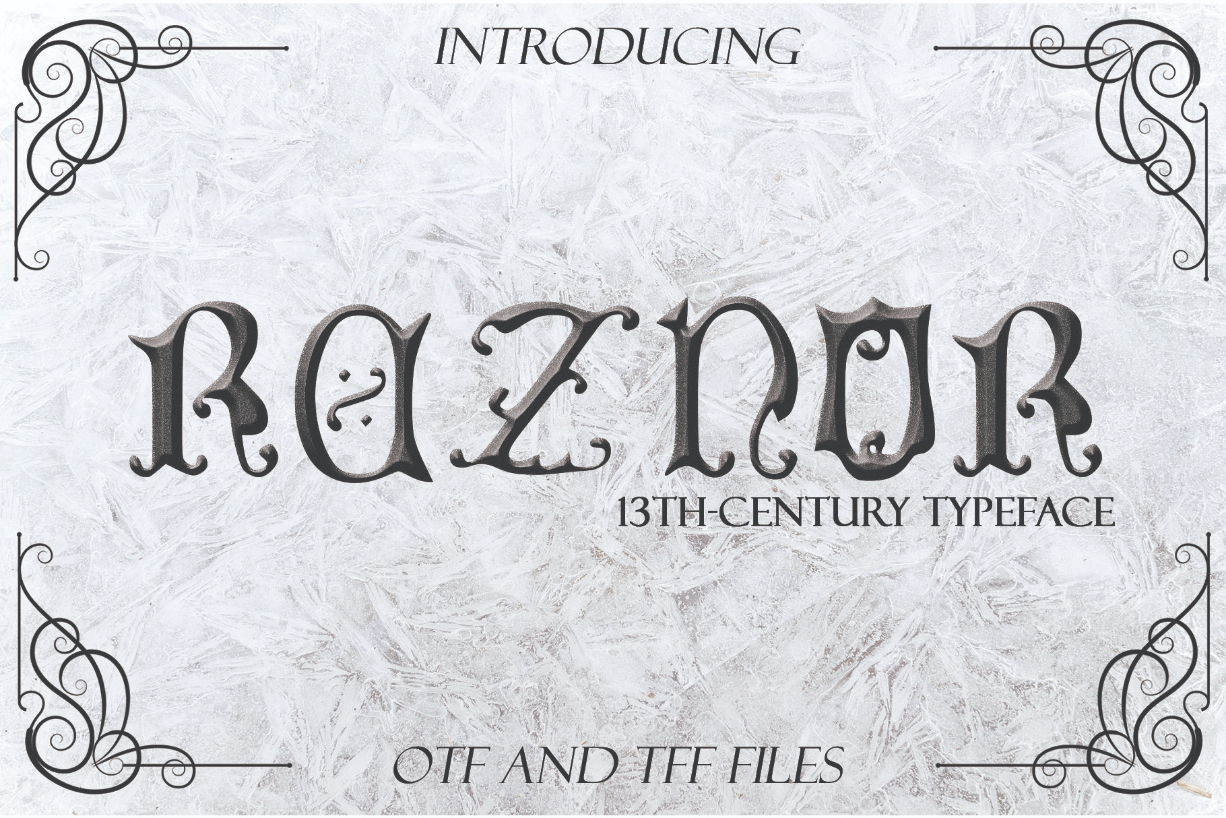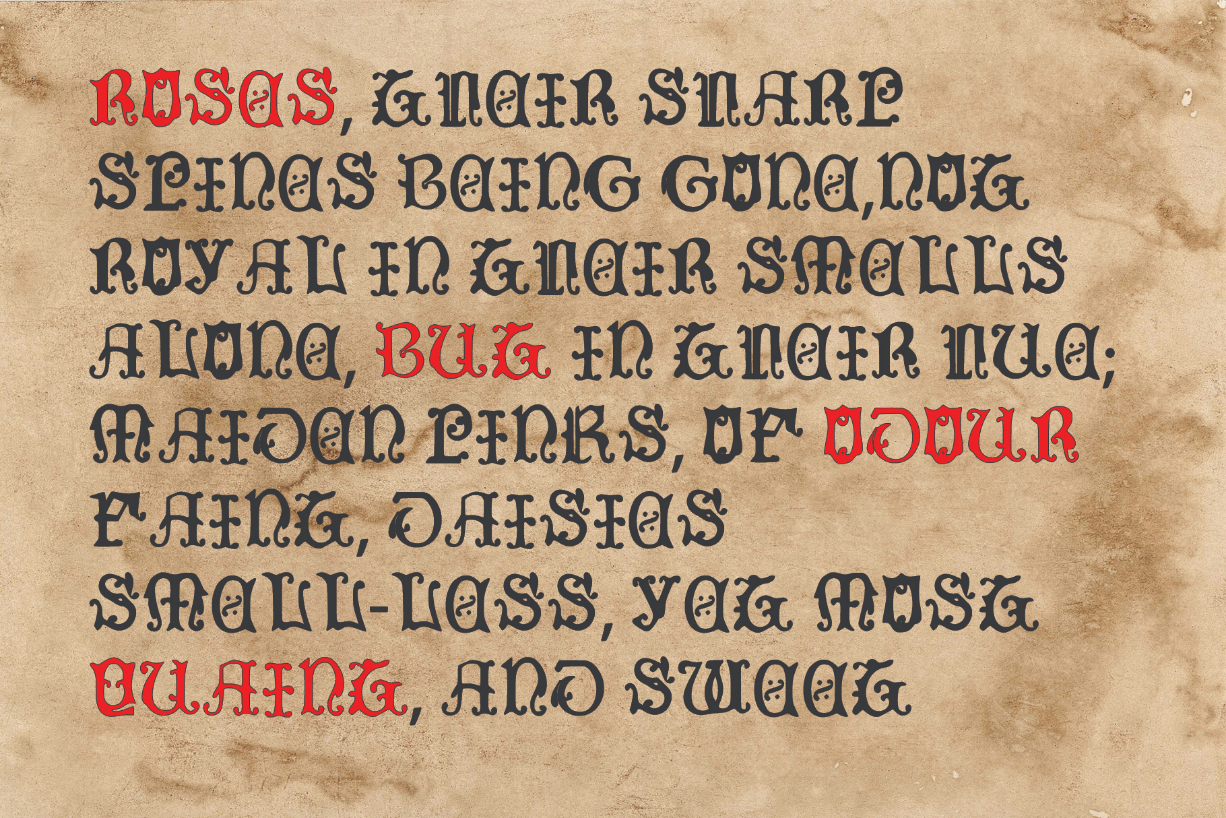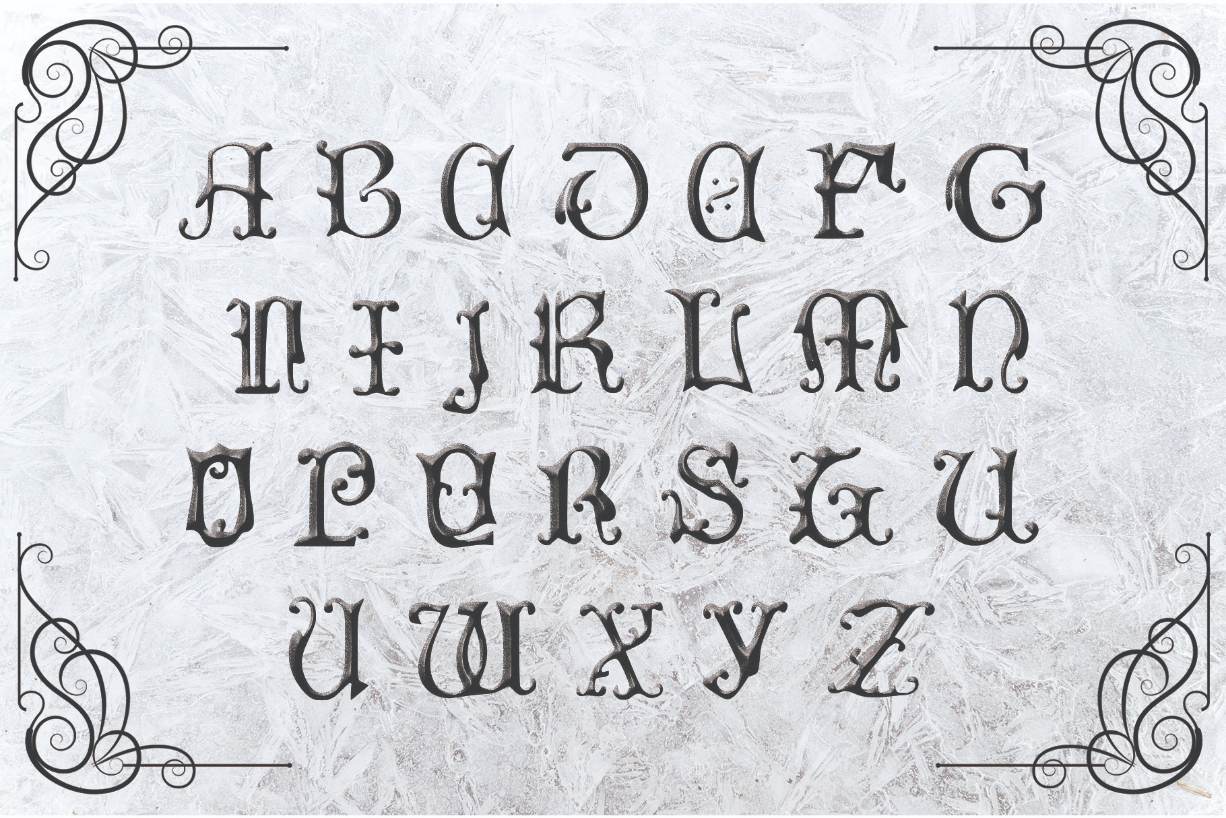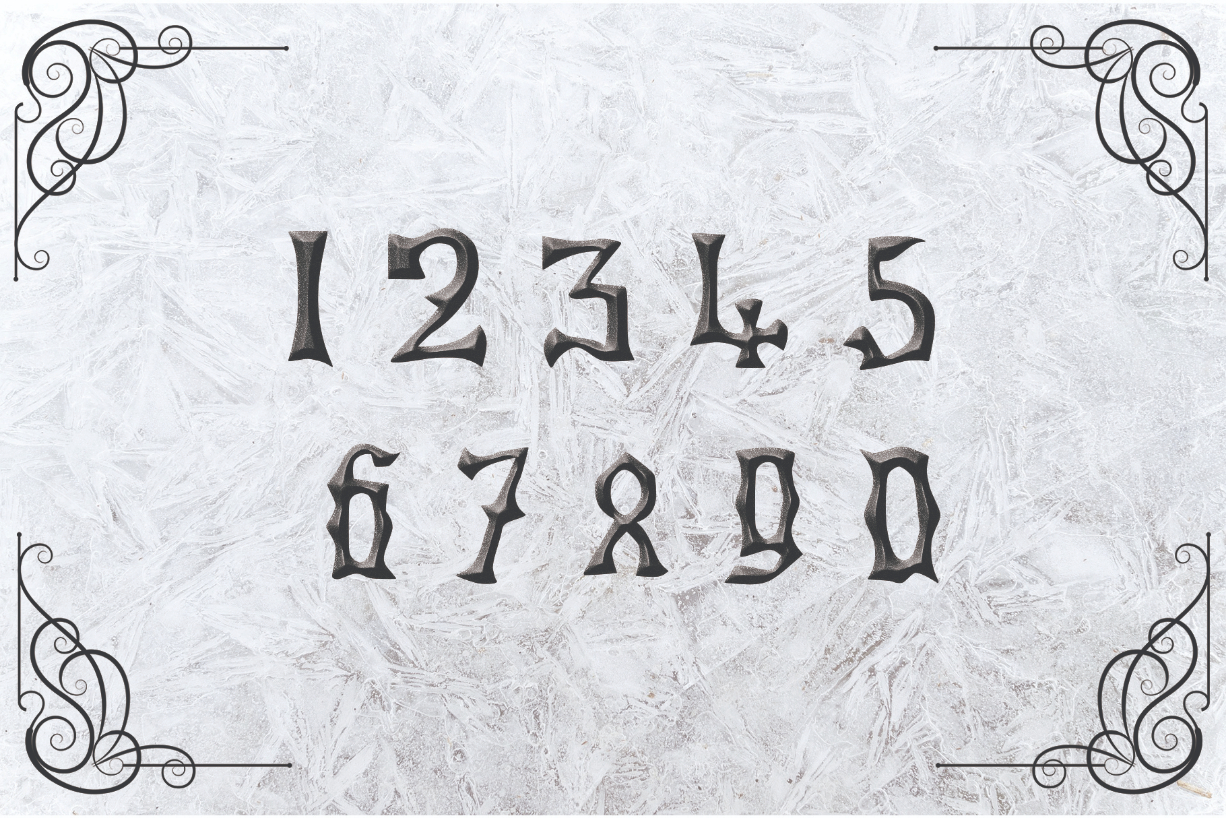
Reznor Font
About Reznor Font
Reznor is a 13th-century decorative typeface with a stunning twist. It has been carefully hand-lettered to add a personal twist to any design project.